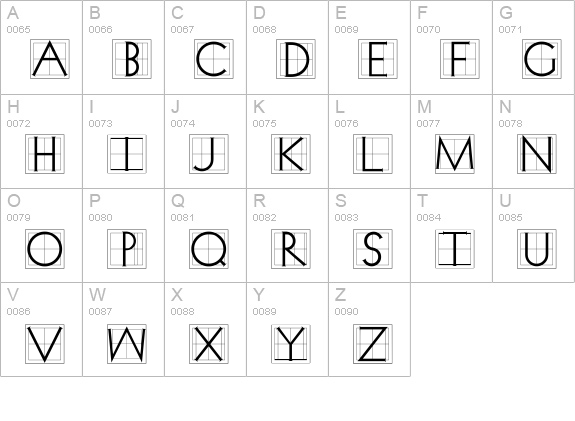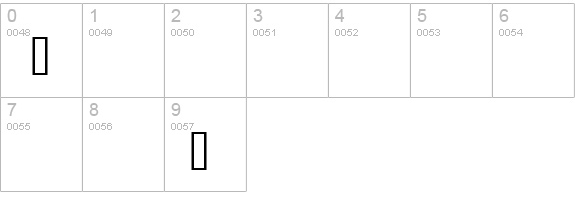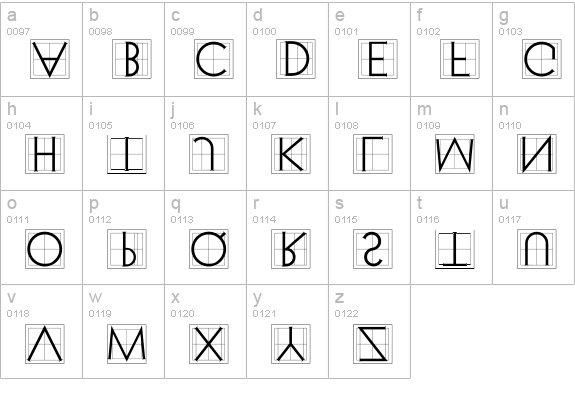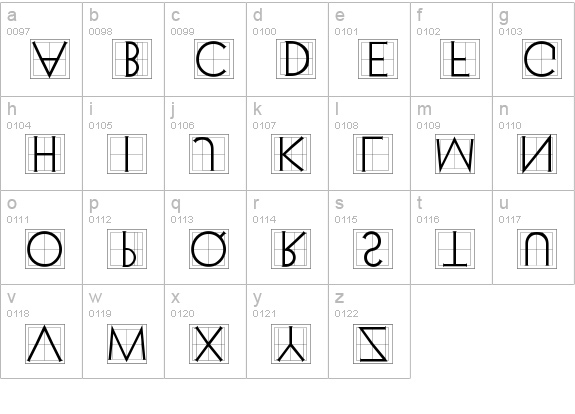
XperimentypoThree Squares Font Details
XperimentypoThree Squares font is a modern and stylish typeface that brings a unique and contemporary look to any design project. With its clean lines and geometric shapes, this font is perfect for creating eye-catching headlines, logos, and branding materials. The three squares design adds a touch of sophistication and elegance to your work. What's even better is that XperimentypoThree Squares font is available for free download at FontsMarket.com. You can easily access this versatile font and use it in your personal and commercial projects without any cost. Whether you're a designer, artist, or business owner, XperimentypoThree Squares font is a great addition to your font collection. Embrace the creativity and versatility of this font and elevate your designs to the next level.